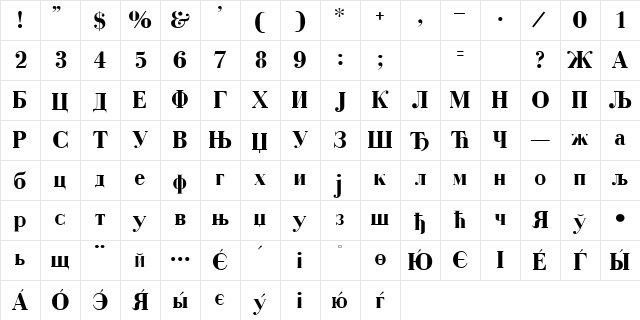
1Bodon-B Regular
Design Context for 1Bodon-B
1Bodon-B is a composed and adaptable typeface that performs quietly and consistently across a wide range of design contexts.
Pro Tip: Use 1Bodon-B in both headline and body roles to test its range before committing to a single application.